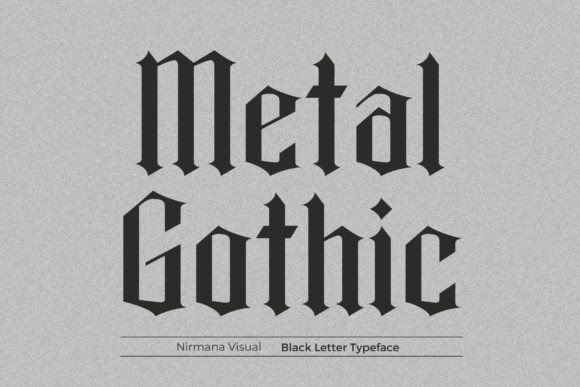
Are you on the hunt for a distinctive and captivating font for your next design project? Look no further than Metal Gothic Font, created by the talented Sigit Dwipa.
Metal Gothic is a stunning blackletter font that exudes style and boldness. It's the perfect choice for those seeking a font with vintage appeal, as it blends old-world charm with modern sensibilities. This font family is perfect for logos and branding, social media posts, advertisements, or product designs that require an edgy and daring touch.
With its beautiful typographic harmony, Metal Gothic Font will elevate your designs and leave a lasting impression on your audience. Imagine the impact of incorporating this captivating font into your next project. The versatility of Metal Gothic will bring a touch of class and sophistication to your designs, creating a unique and memorable experience for your viewers.
Sigit Dwipa's exceptional attention to detail is evident in Metal Gothic's elegant curves and fine lines, resulting in a font that is both timeless and contemporary. Its unique characteristics make it stand out from the crowd and help your designs make a bold statement.